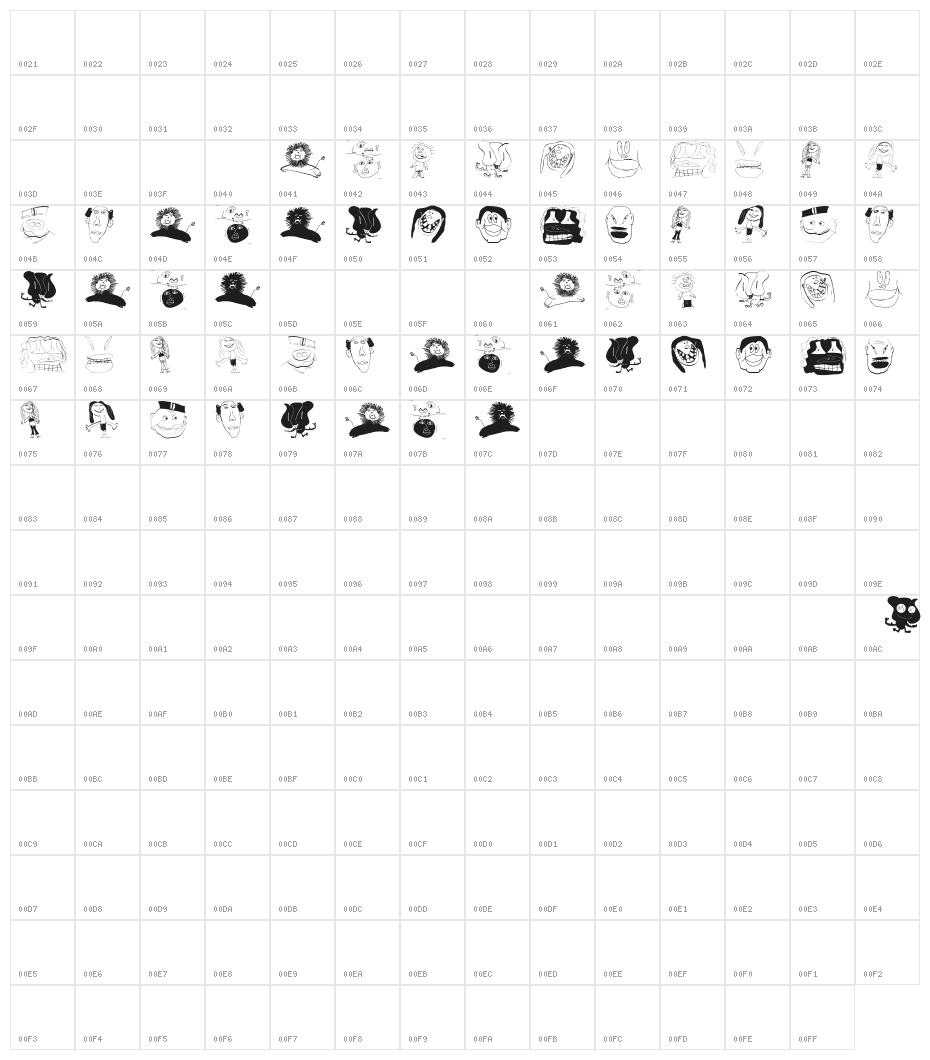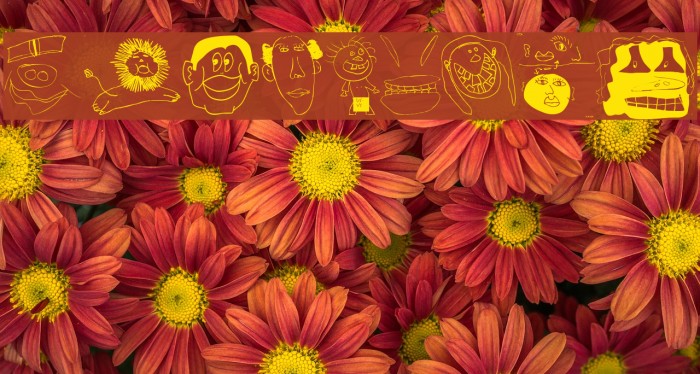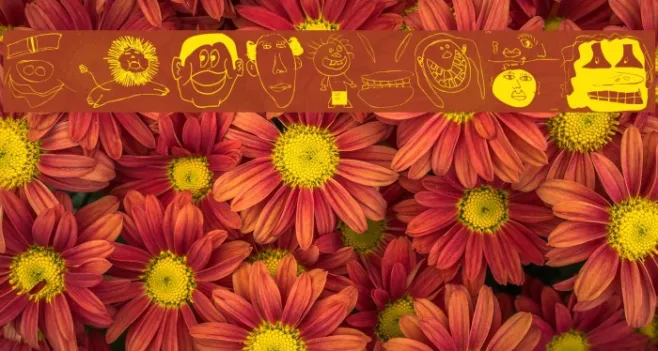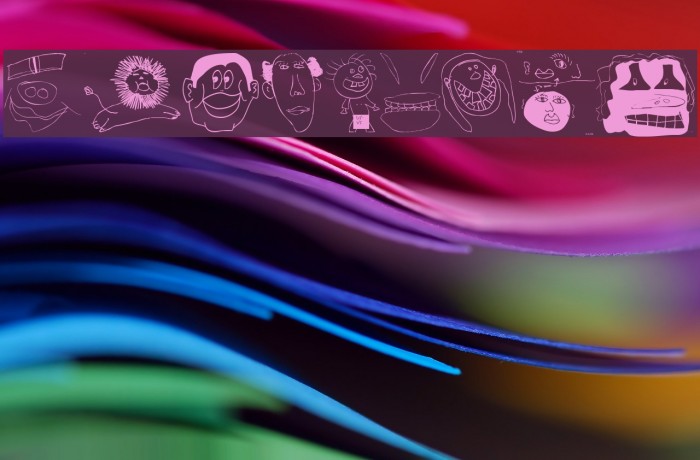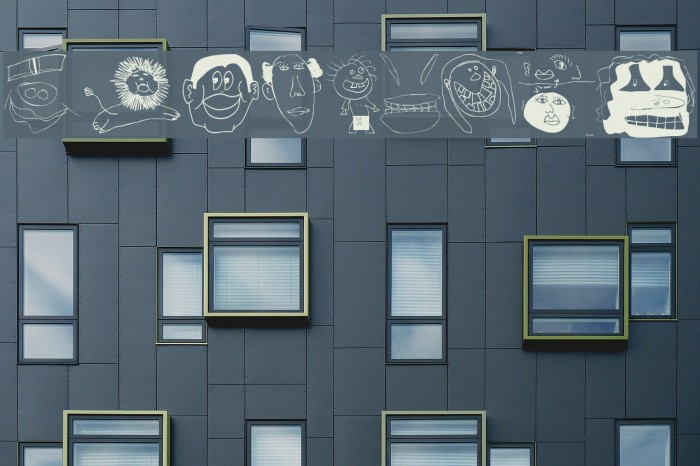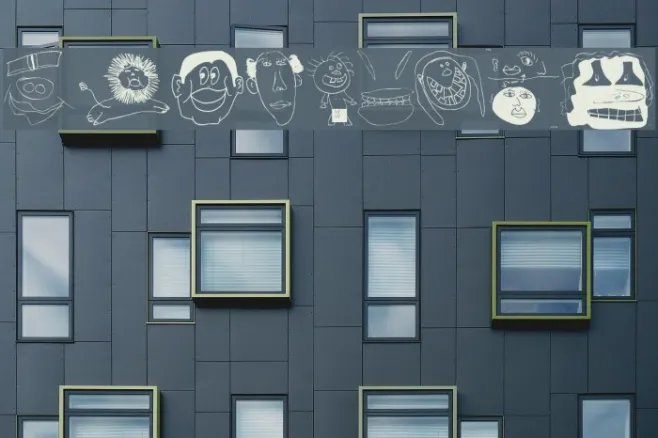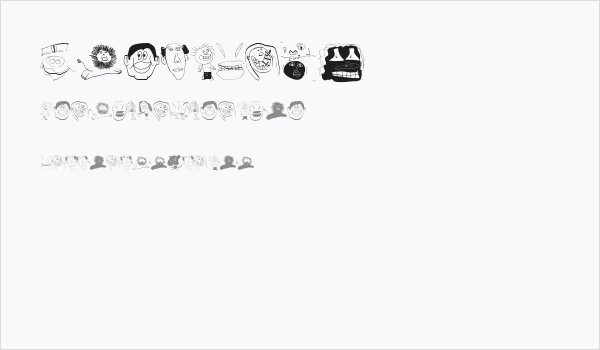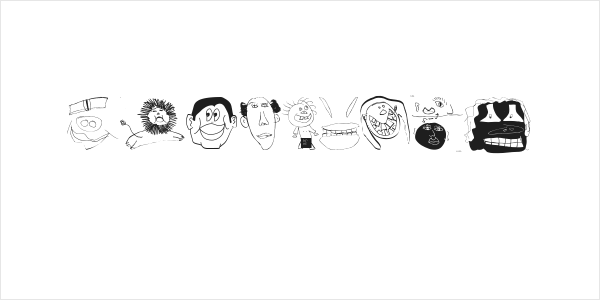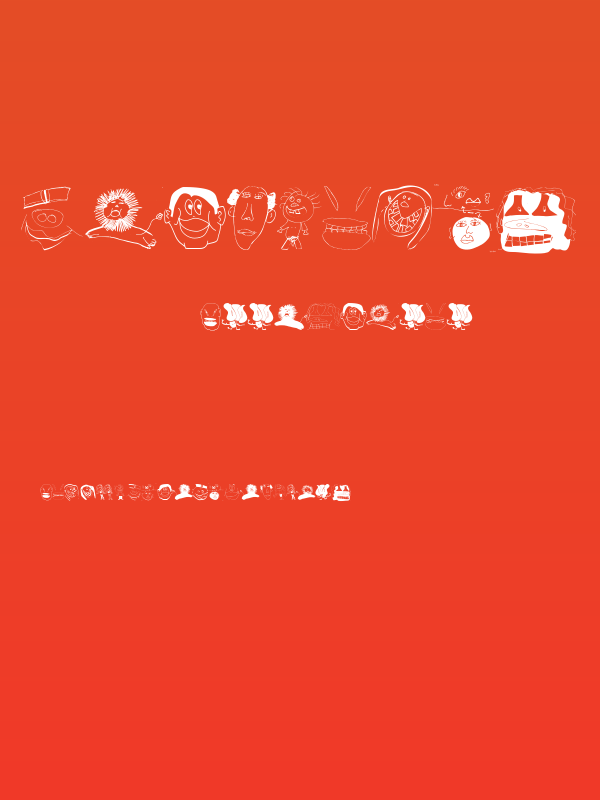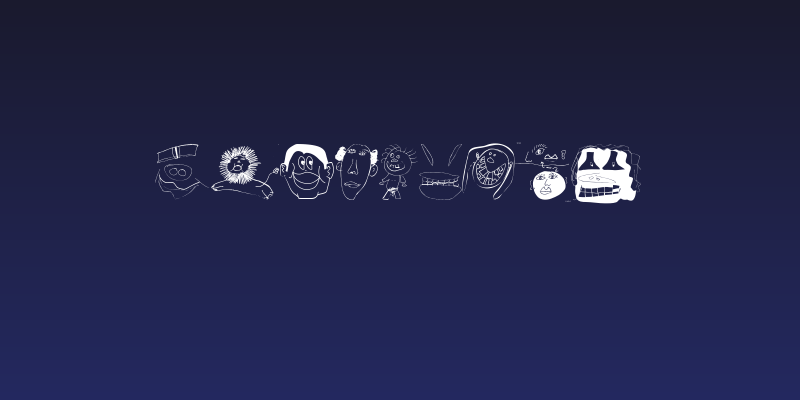
Karlchens Font
Karlchens Description
A highly decorative and whimsical font composed of hand-drawn cartoon faces and characters, each glyph uniquely illustrated with playful and exaggerated features, resulting in a lively and humorous appearance.
| Overall Style | Decorative, Whimsical, Playful |
| Use Case | Headlines, Posters, Logos, Children's materials |
| Proposed Projects | Children's books, comic strips, party invitations, playful branding, posters, novelty merchandise. |